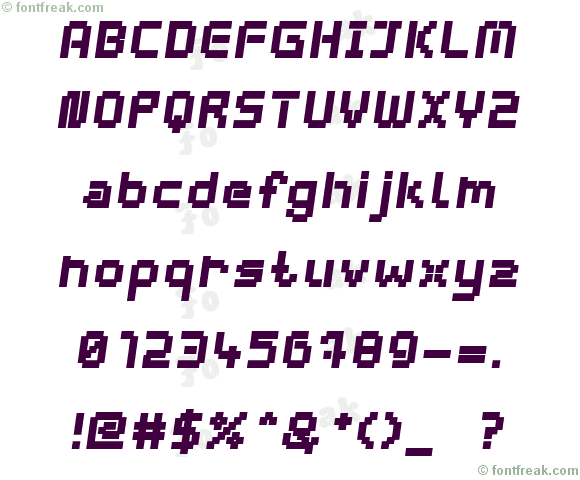
webpixelbitmap-MediumItalic
The webpixelbitmap-MediumItalic font by Manuel Viergutz is a unique display typeface that captures a retro digital aesthetic reminiscent of early computer graphics. As a part of the bitmap font category, it features distinct pixelated characteristics that evoke a nostalgic feel. The stroke weight is consistent, giving it a uniform look, while the italic slant adds a dynamic quality that enhances its visual appeal. The spacing is tight, making it suitable for compact text applications, while the overall design remains legible and engaging.
This font is ideal for a variety of creative projects. Its digital charm makes it an excellent choice for video game graphics, where it can effectively convey a sense of vintage technology. Additionally, it can be used in website headers and banners to attract the attention of visitors who appreciate a retro vibe. Restaurant menus that wish to create a playful atmosphere can benefit from the font's unique style, while movie posters aiming for a sci-fi or tech theme will find it to be a fitting choice. Graphic designers, small business owners, and content creators looking to make a statement will find the webpixelbitmap-MediumItalic font free download to be a valuable asset for their projects.
What sets the webpixelbitmap-MediumItalic font apart is its ability to blend nostalgia with modern design elements. It stands out not only for its pixelated charm but also for its versatility across various applications. Whether used in digital media or print, this font adds a distinctive touch that resonates with audiences, making it a compelling choice for anyone looking to infuse their work with a bit of retro flair. Embrace the unique character of webpixelbitmap-MediumItalic and elevate your design projects today.